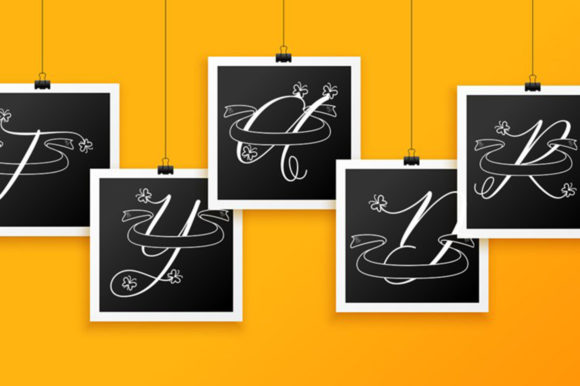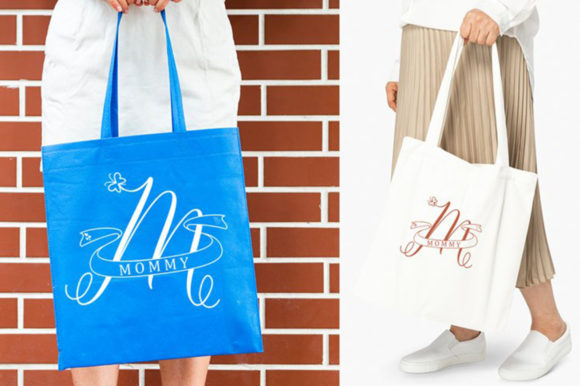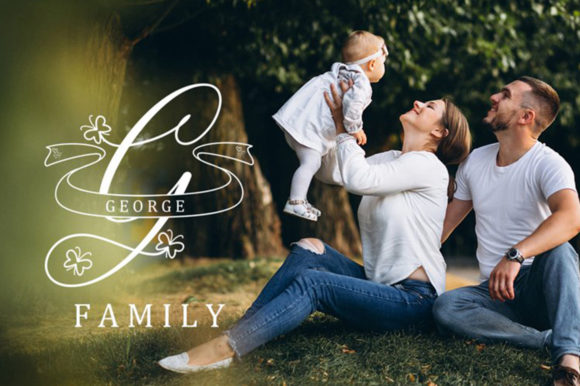
The Magic of Butterflies Monogram Font: A Designer’s Delight
I’ll never forget the moment I stumbled upon the perfect font for a client’s wedding invitation project. I had been searching for what felt like an eternity, trying out font after font, but nothing seemed quite right. That was until I discovered Butterflies Monogram Font. It was love at first sight! 💕 The delicate, elegant handwritten script instantly elevated my design, and I knew I had found the one. In this article, I’ll share my experience with this beautiful font, its features, and how to make the most of it in your designs.
An Honest Review of Butterflies Monogram Font
• ✨ Delicate and elegant handwritten script with a classy calligraphic feel
• ✅ Highly detailed and refined, perfect for high-end designs
• 💫 Contemporary and fresh, yet maintains a timeless charm
• 🎨 Versatile and suitable for a wide range of design projects, from wedding invitations to branding and packaging
While Butterflies Monogram Font is a stunning addition to any design, there are a few things to keep in mind:
• ⚠️ The font’s intricate details may not render well at very small sizes, so it’s best used at larger sizes (around 20-30 points or more).
• 🤔 Some users may find the font a bit challenging to read in large blocks of text, so it’s best suited for headings, titles, or short paragraphs.
The Story Behind Butterflies Monogram Font
Butterflies Monogram Font was created by a talented type designer who drew inspiration from traditional calligraphy and the delicate beauty of butterflies. The font’s intricate details and elegant lines are designed to evoke a sense of wonder and sophistication. Whether you’re a designer, crafter, or creative hobbyist, this font is sure to inspire your next project.
Q: What type of designs is Butterflies Monogram Font best suited for?
A: Butterflies Monogram Font is perfect for a wide range of design projects, including wedding invitations, branding, packaging, and more.